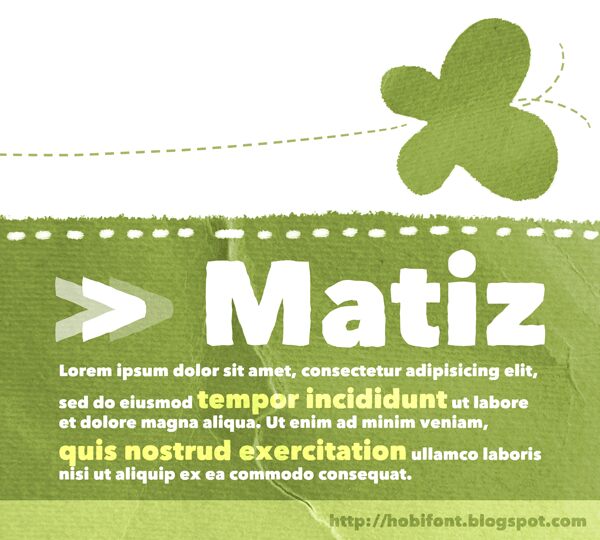
Matiz by Beycan Çetin is a free cartoon display font with thick, uneven lettering and a lively hand-cut look. Broad shapes lean and bulge in different directions, so each line has an intentionally jostled silhouette. Rough edges and blunt joins keep the forms tactile rather than polished.
It can turn a children's book cover into playful lettering. The same chunky construction suits toy packaging, comedy posters, and casual game graphics, where it can become the central mark of a cheerful product identity.